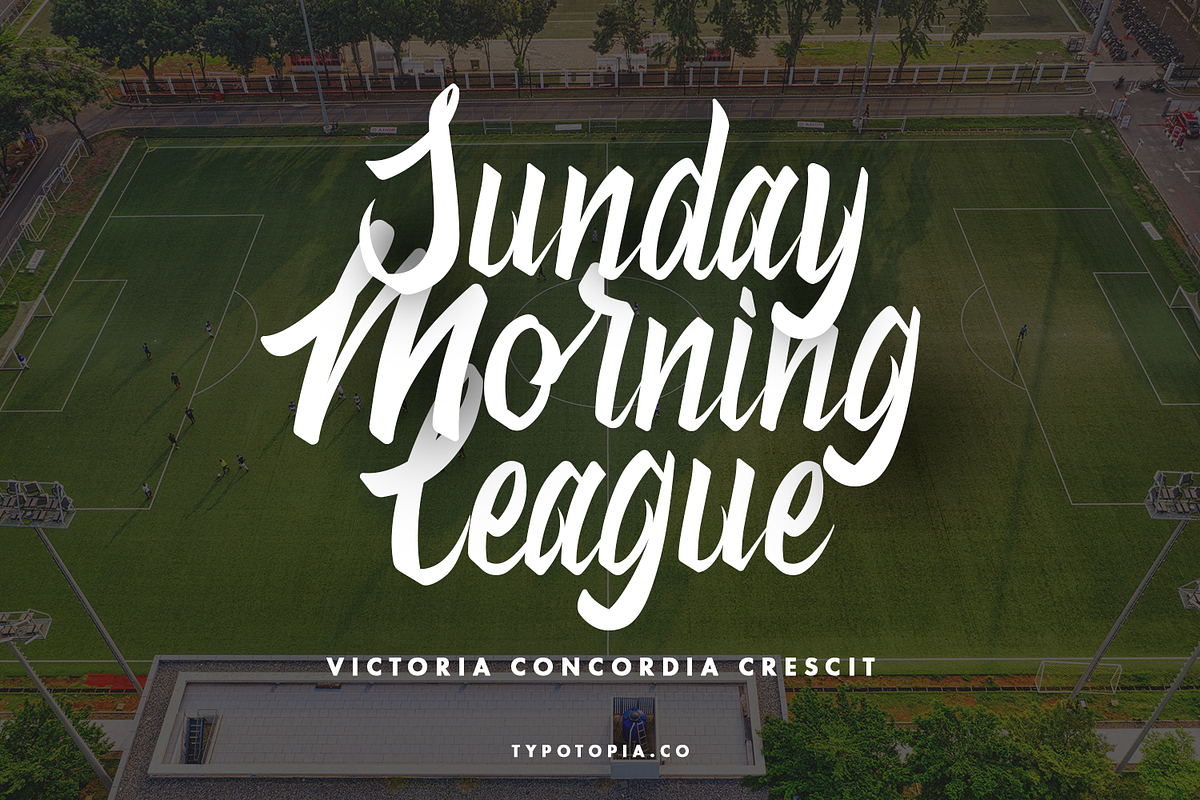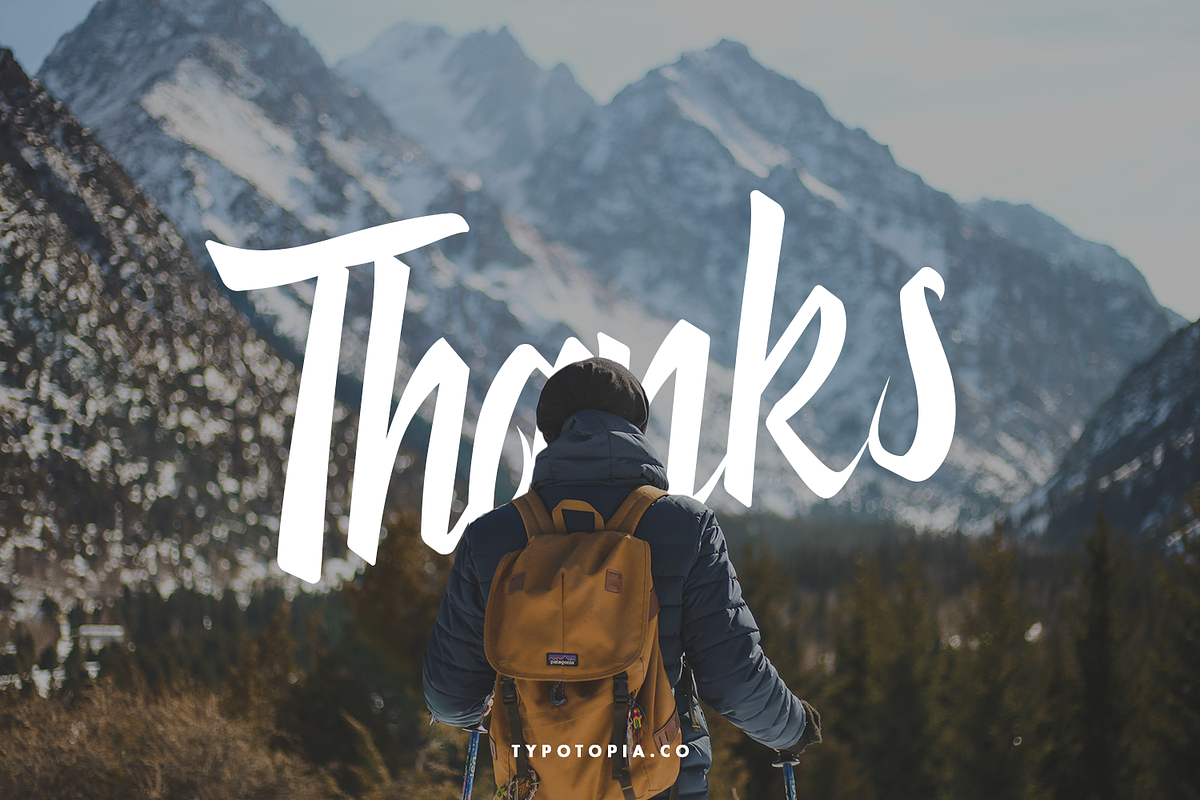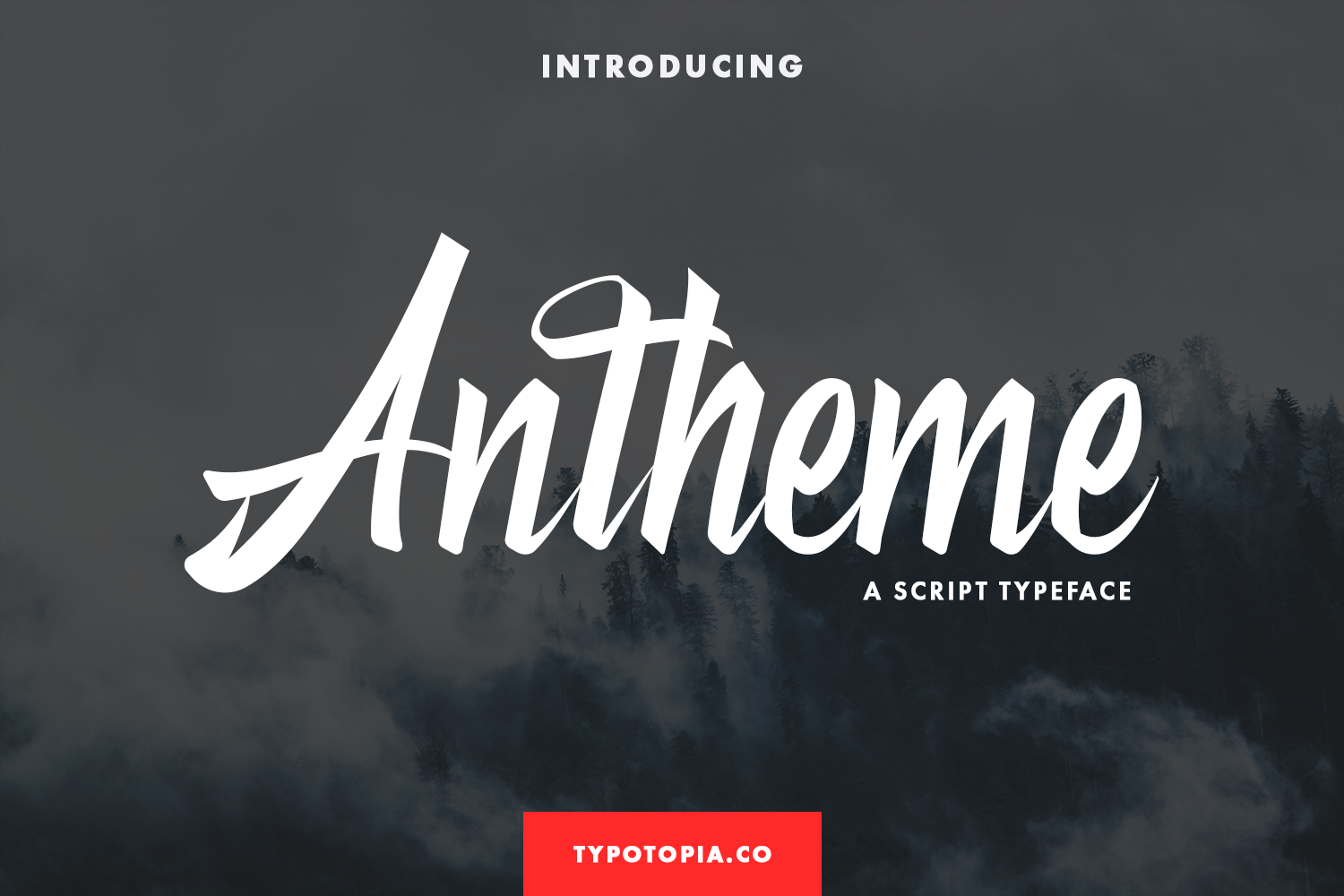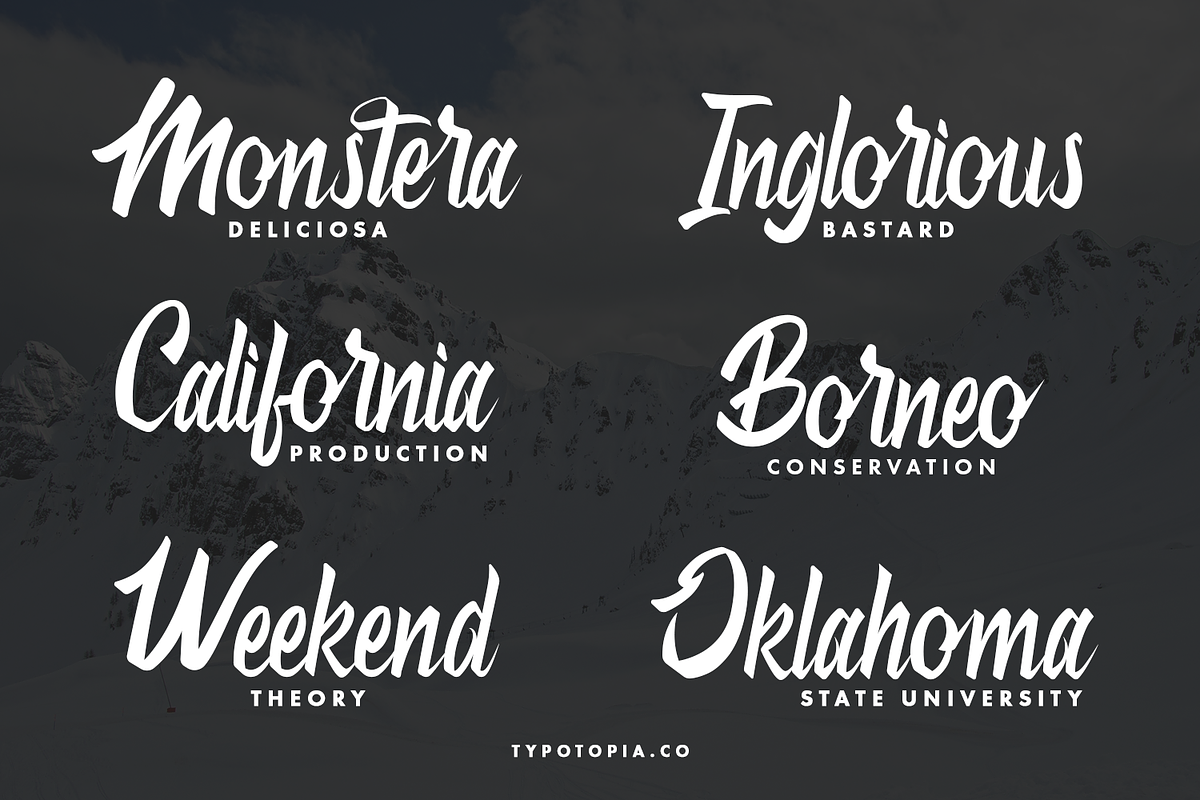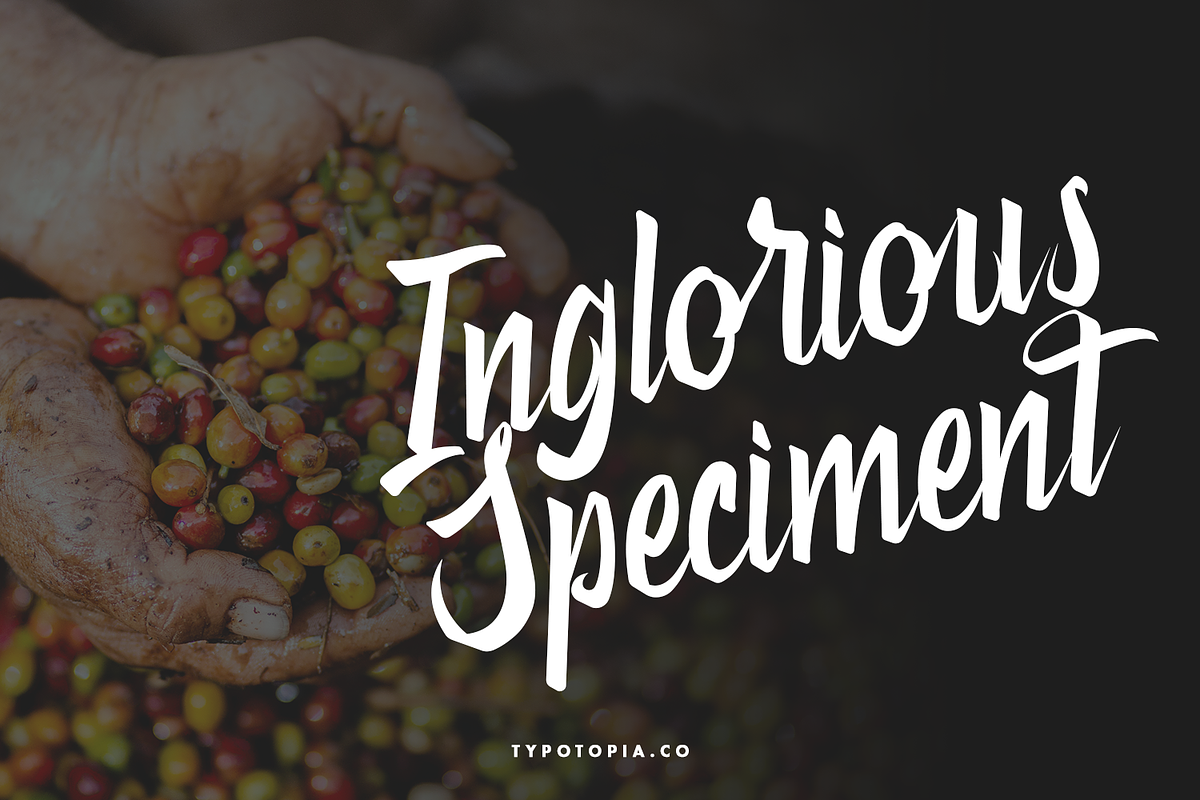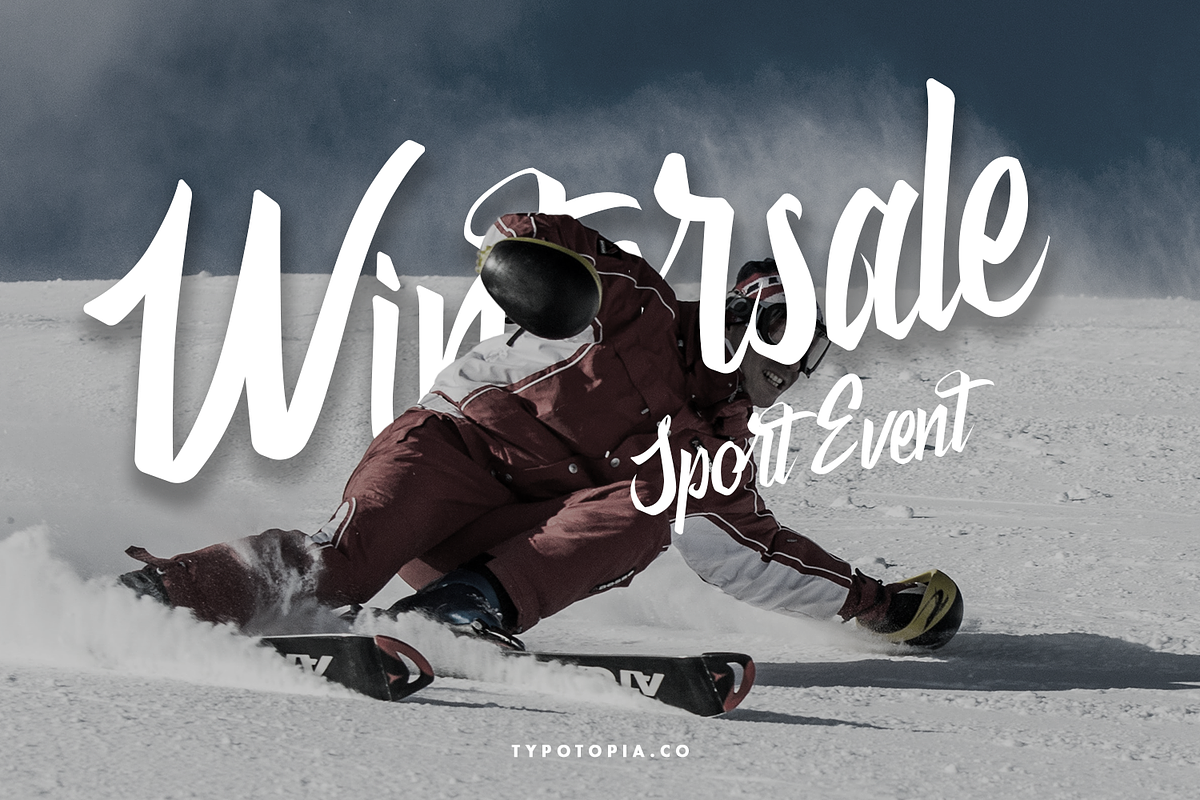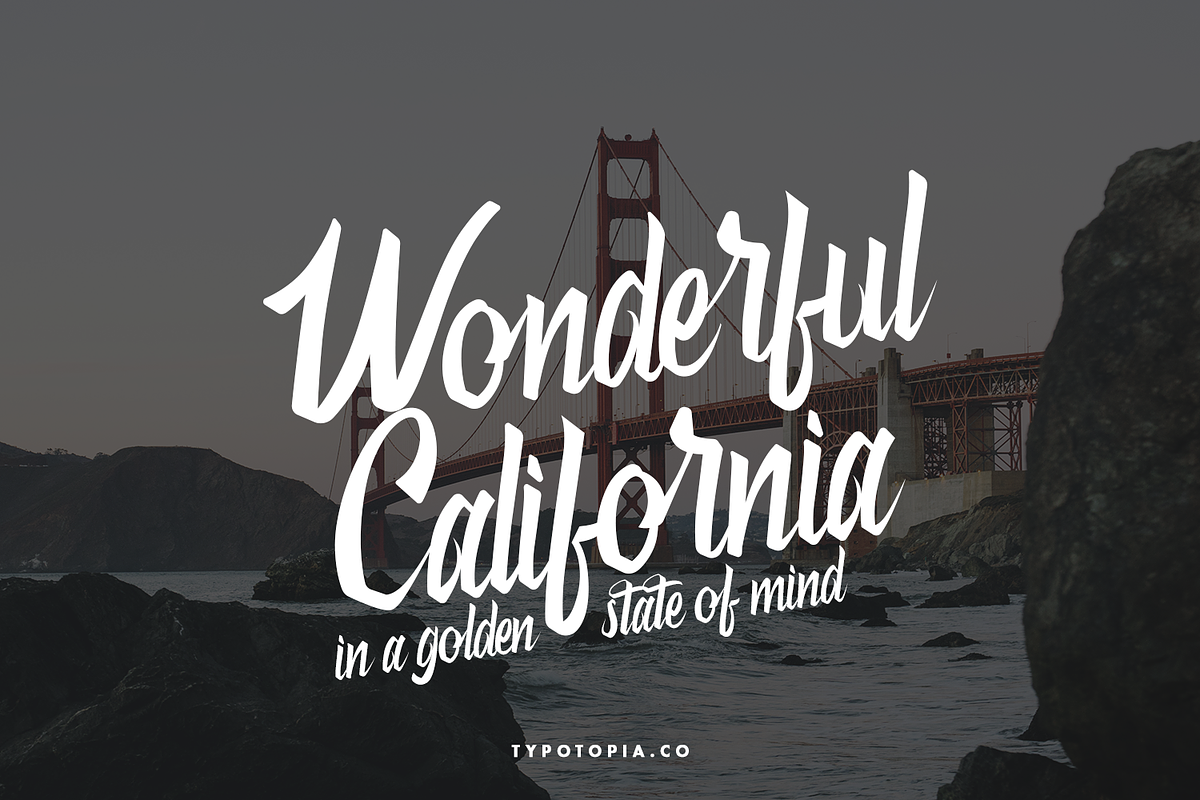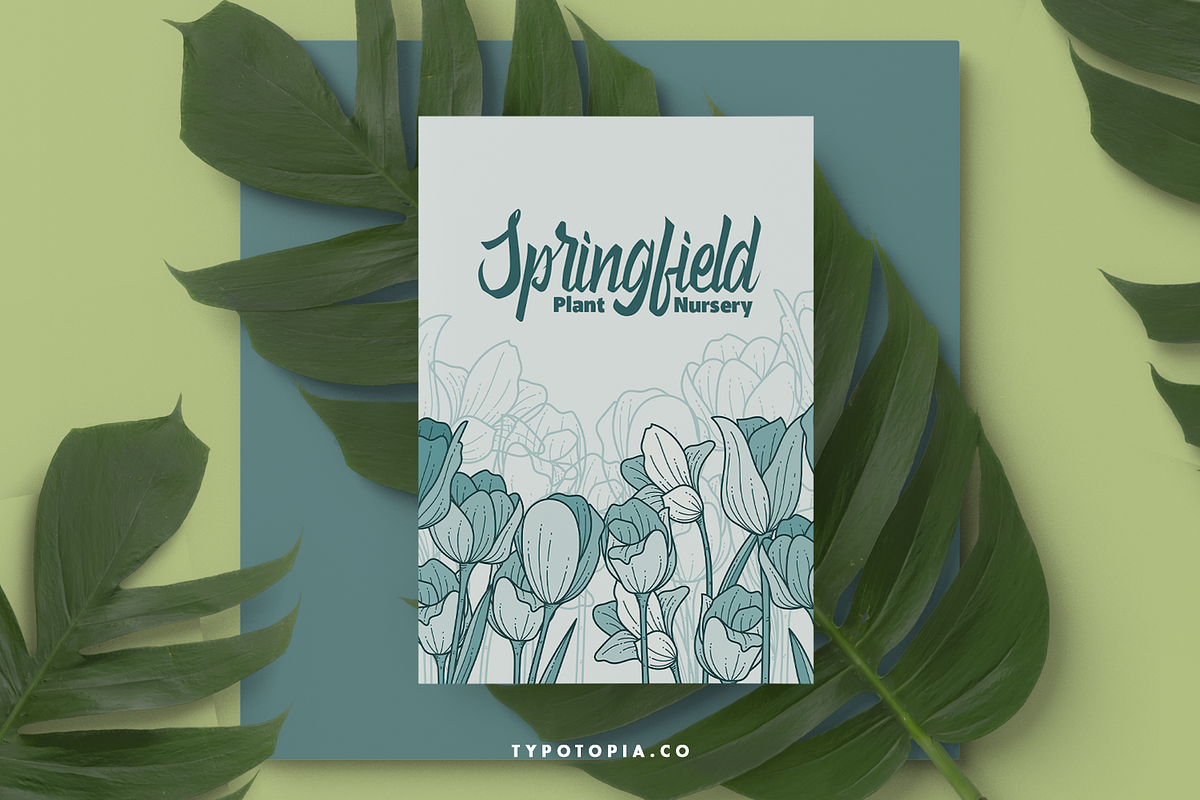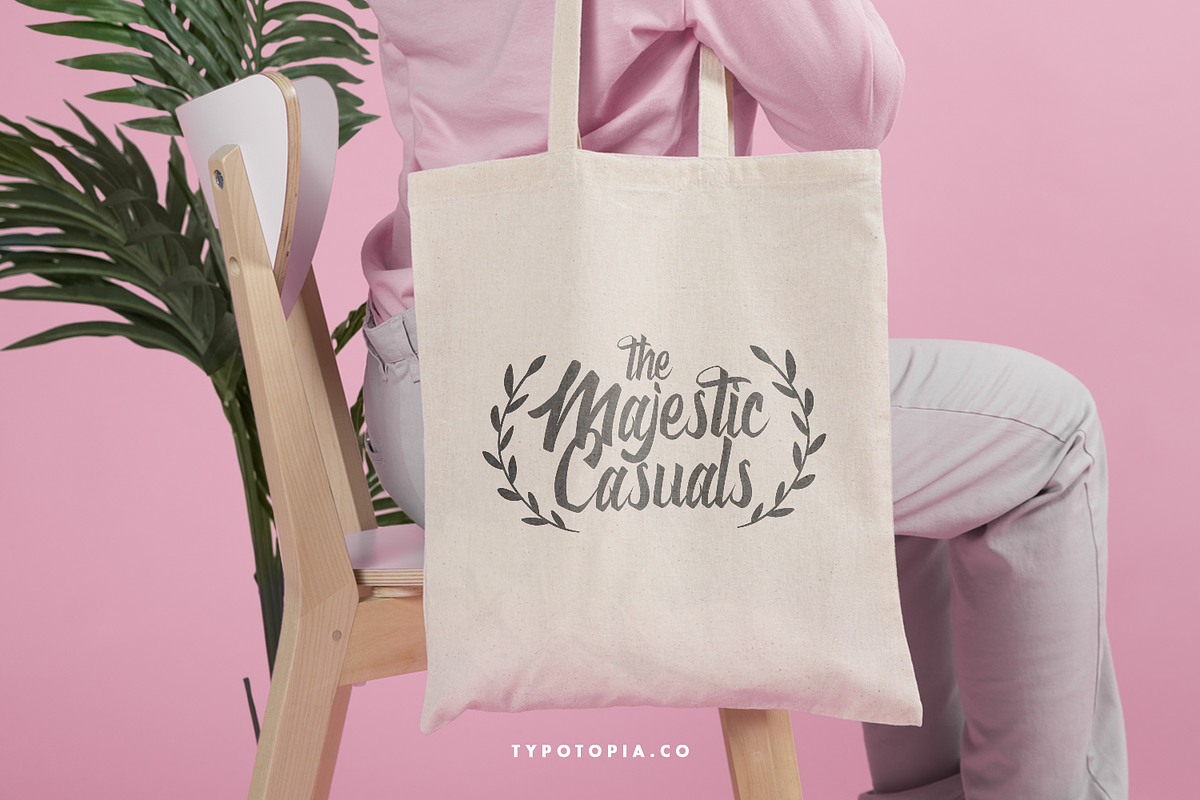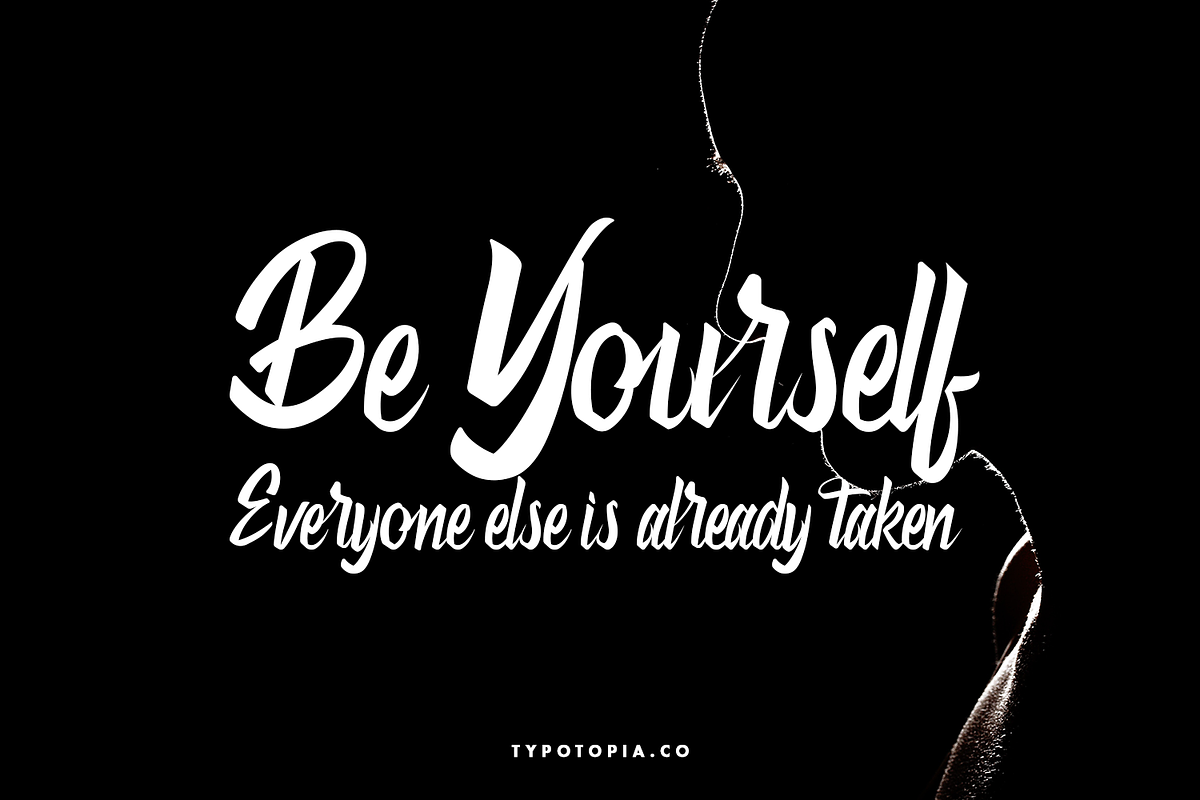
Antheme Script Typeface
Typotopia Proudly Present Antheme The Script Font. This Fonts Comes is a bold connected script font with a clear style and dramatic movement. Every single letters have been carefully crafted to make your designs looks better.
Antheme Font is the great choice for several purpose, such as watermark, logo, business card design, quotes, album cover, invitation letter, stationery, and many other design project that need handwriting taste.
Antheme also Support Multilingual Feature for Foreign Language, here’s the list : áäåãéèëìïîòöôøùüAÀÁÂÃÄÅEÈÉÊËIÌÍÎÏNÑOÒÓÔÕÖUÙÜÚÛYÝŸ?Ÿ
- Uppercase & Lowercase letters